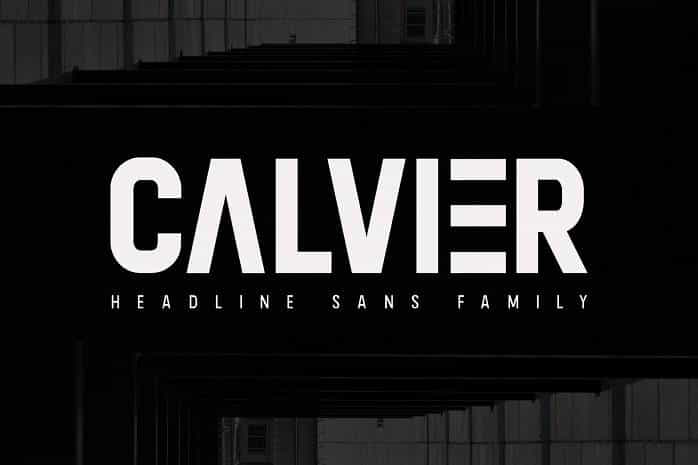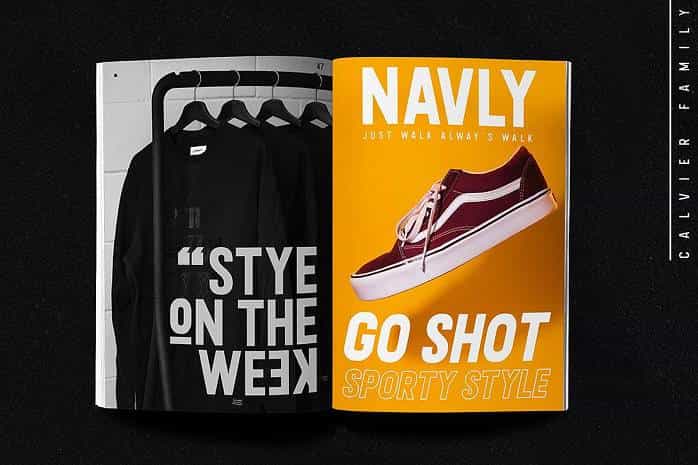
Calvier is an extremely flexible sans serif family to achieve a very sharp and modern look. It was based on old, stylish fonts that were neatly created. Created to make a striking and beautiful visual impression on, particularly on Headline,logos and posters.